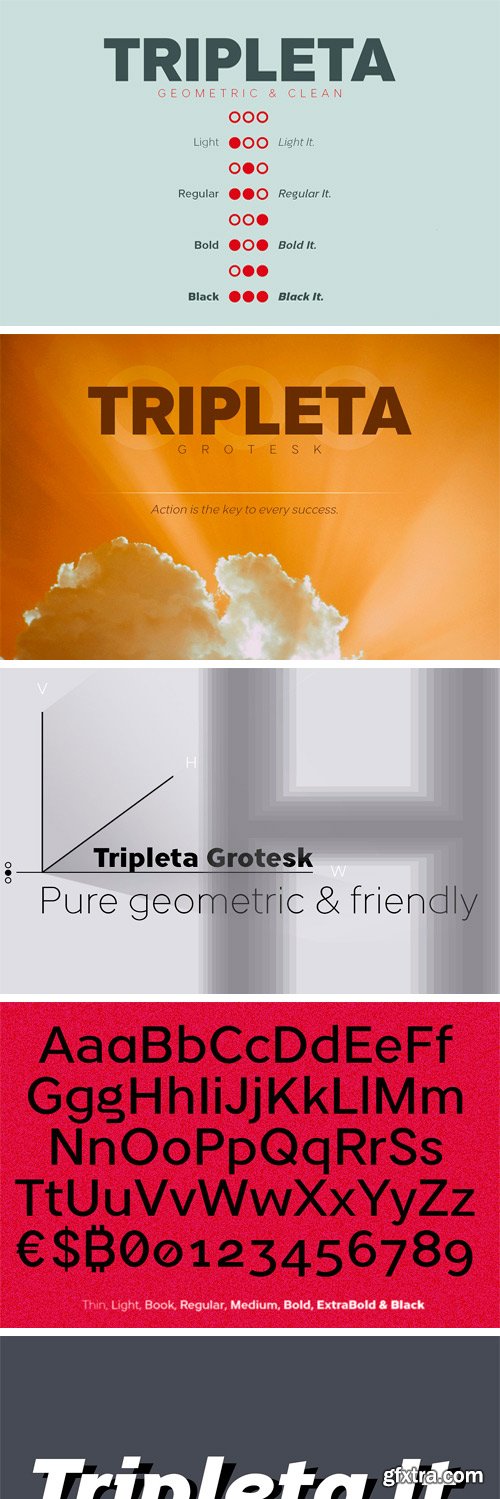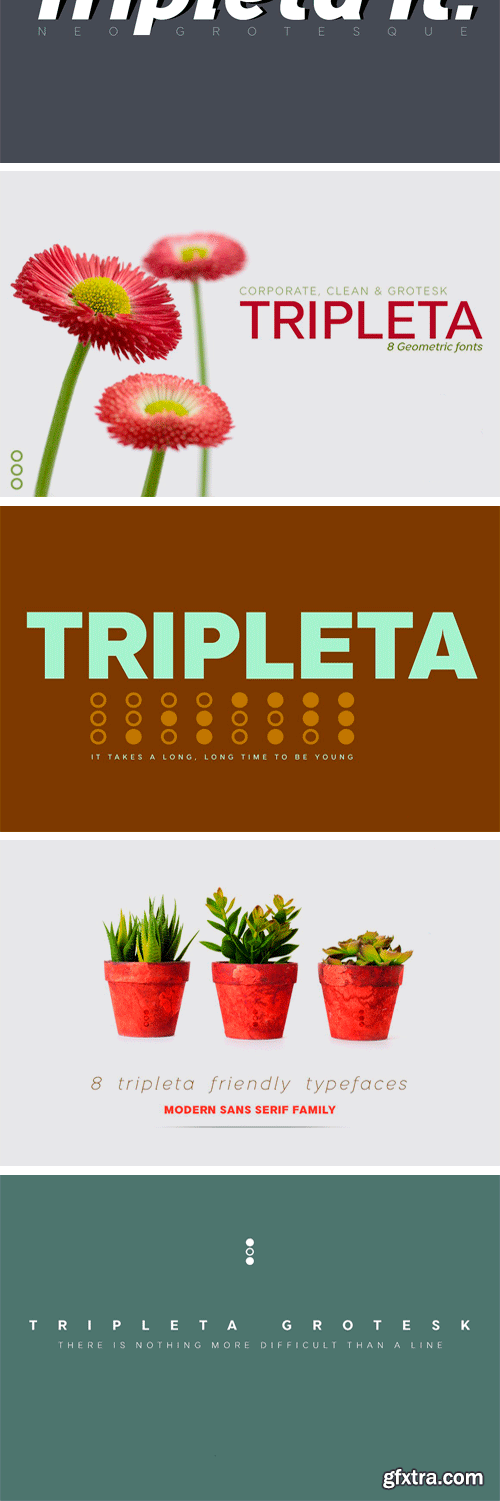
CM - Tripleta Grotesk Font Family 2443349
Tripleta Grotesk is a 16-member typographic family with a very clean and corporate look. Tripleta is of pure geometric construction basing the proportions, with extreme care, of each letter based on my theory of the three axes.